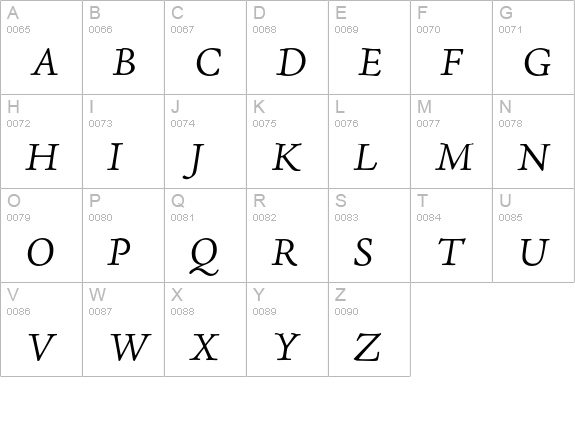
Adobe Jenson Pro Light Italic Caption is a refined, elegant, italic variant in the Adobe typeface family \xE2\x80\x94 well suited to elegant body text, refined sub-headings, and luxury branding.
The Adobe Jenson Pro Light Italic Caption font is a graceful and elegant typeface perfect for adding a touch of sophistication to your design projects. With its delicate slant and refined curves, this font exudes a sense of timeless beauty and classic charm. Whether you're working on a magazine layout, branding materials, or invitations, this font will add a touch of sophistication to any project. And the best part? You can freely download the Adobe Jenson Pro Light Italic Caption font at FontsMarket.com. So go ahead and elevate your designs with this exquisite typeface that is sure to make a lasting impression.